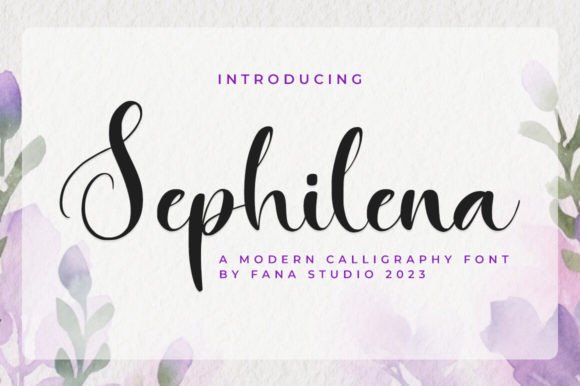
Welcome to the world of Sephilena Script, a font of unmatched elegance, class, and modern allure. Step into a realm where your creative visions take flight, where every letter dances with grace and sophistication. This beautiful script font, brought to you by fanastudio, is more than just a collection of characters; it's an invitation to immerse yourself in a world of artistic possibilities.
Sephilena Script's elegant strokes and flowing curves evoke a sense of timeless elegance, making it the perfect choice for those seeking to capture the essence of sophistication in their designs. Its carefully crafted ligatures and alternates add a touch of whimsy and charm, inviting you to explore the depths of your imagination. Whether you're designing logos, invitations, stationery, wedding designs, or any other project that demands a touch of elegance, Sephilena Script stands ready to elevate your work to new heights.
Imagine your wedding website adorned with the elegant swirls of Sephilena Script, each letter a testament to the love and joy of your special day. Let your social media posts shimmer with elegance, capturing the attention of your followers with every scroll. Elevate your product packaging with a touch of sophistication, making your products stand out from the crowd. Unleash your creativity with Sephilena Script, a font that knows no bounds.
Let the timeless beauty of Sephilena Script captivate your audience, leaving them breathless with its elegance and grace. This font is more than just a design tool; it's a gateway to a world of endless possibilities, where your creativity reigns supreme. Embrace the timeless beauty of Sephilena Script today and unlock the potential of your artistic vision.